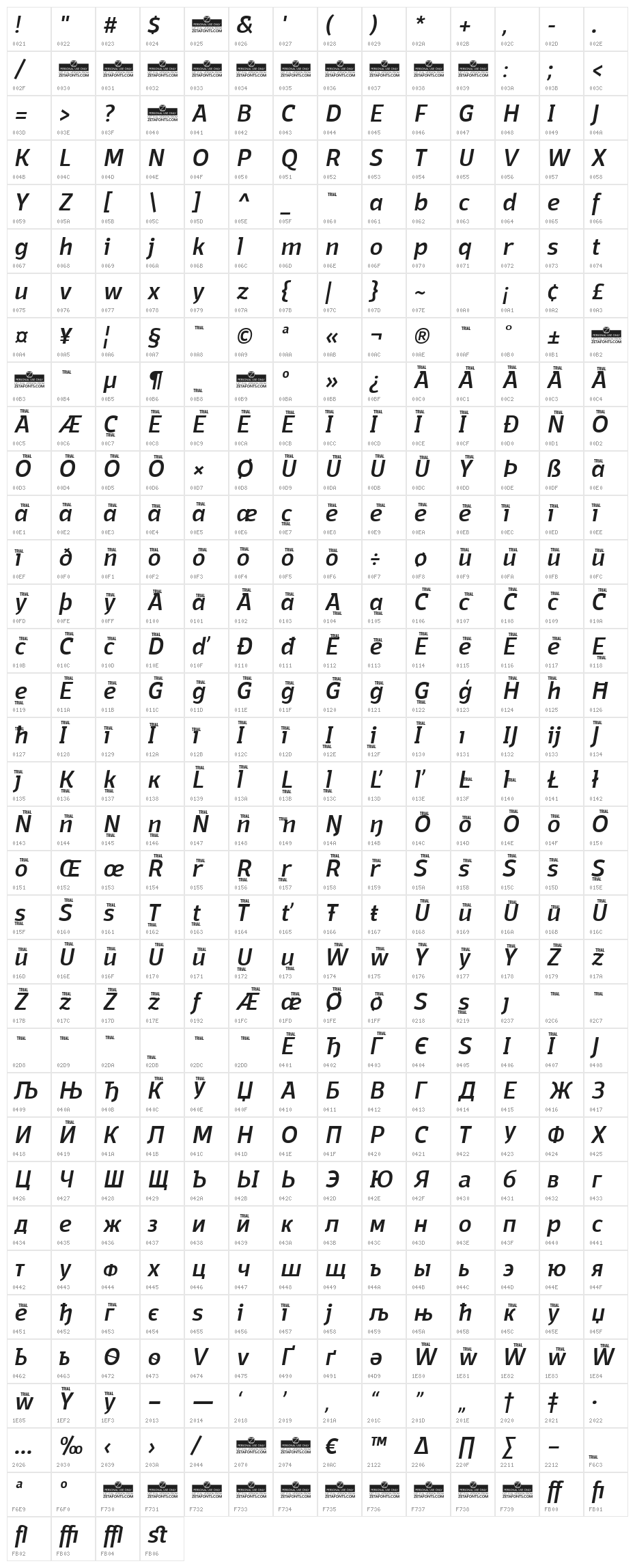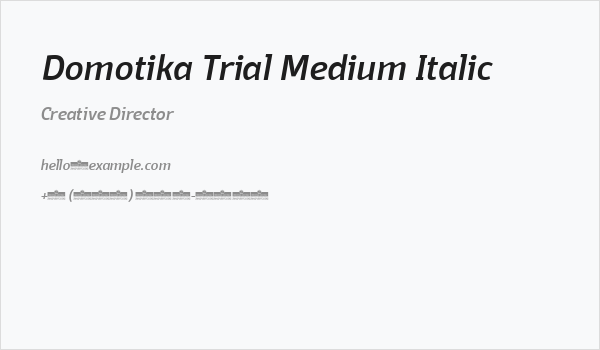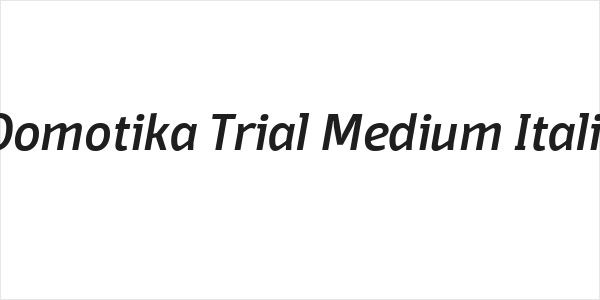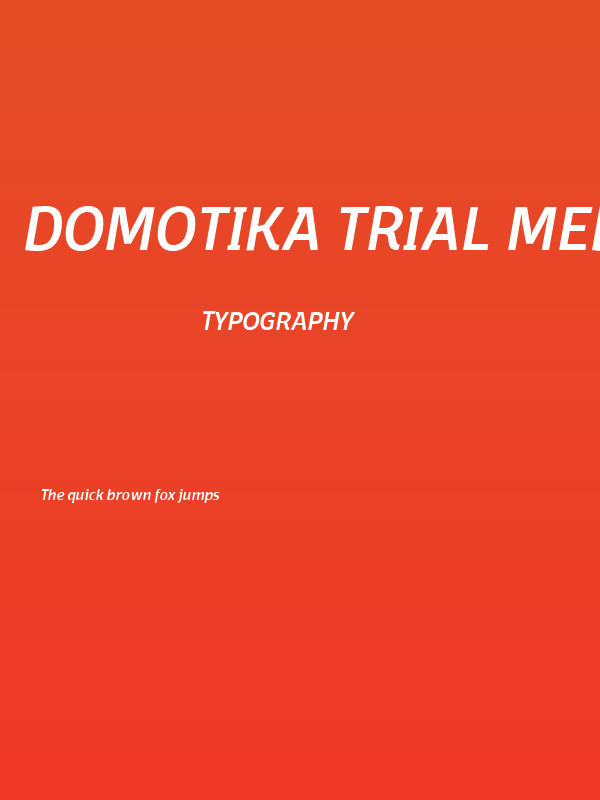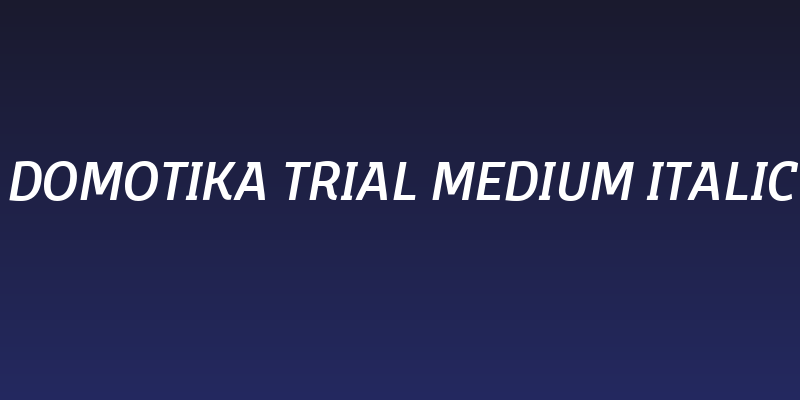
Domotika Trial Medium Italic Font
Domotika Trial Medium Italic Description
This font presents a sleek and modern design with a slight italic slant, giving it a dynamic and forward-moving appearance. The characters are well-defined with clean lines and a medium weight, making them highly legible. The uppercase and lowercase letters maintain a consistent style, with a uniform stroke width that adds to its readability. The numerals and special characters are designed to match the overall aesthetic, ensuring a cohesive look across different uses. This font is versatile, suitable for both digital and print media, and can be used effectively in various design projects.
| Proposed Projects | Ideal for branding, advertising, web design, and editorial layouts where a modern and dynamic feel is desired. |